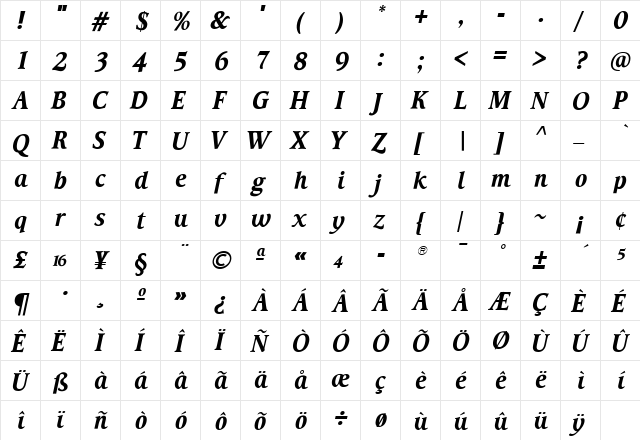
TFHabitat Bold Italic
| Foundry | Treacyfaces, Inc |
| Year | 1988 |
Design Context for TFHabitat Typeface
TFHabitat takes a measured approach to typography — its balanced proportions and neutral character make it a reliable workhorse for both digital and print work. The slanted form adds forward momentum and visual energy. The heavy weight commands attention and anchors typographic hierarchies.
Pro Tip: Use TFHabitat for emphasis, pull quotes, and subheadings where its slanted energy can add rhythm to the layout.